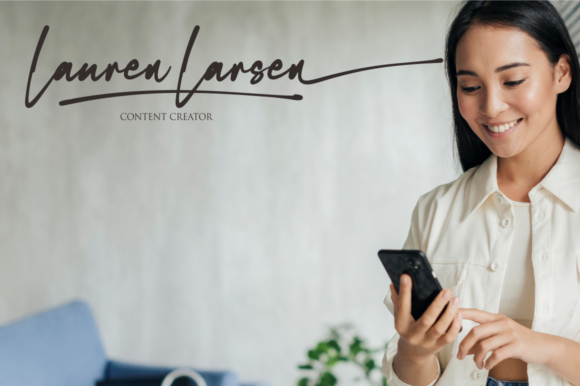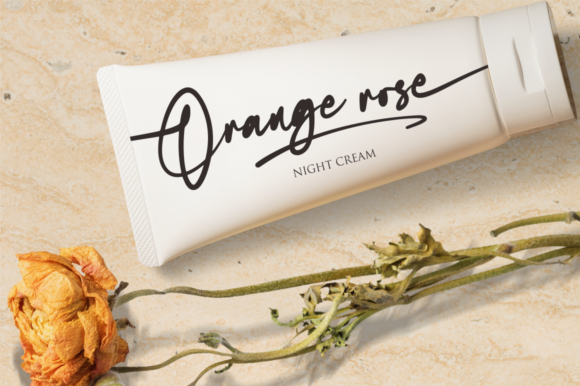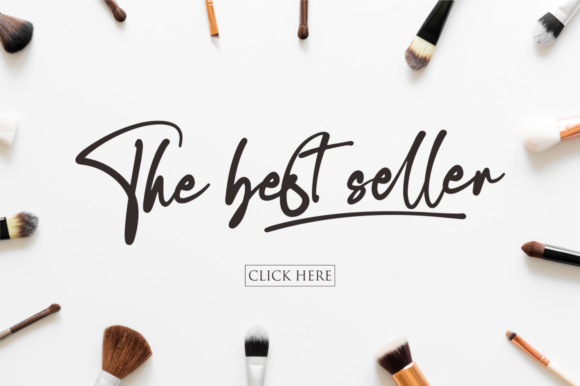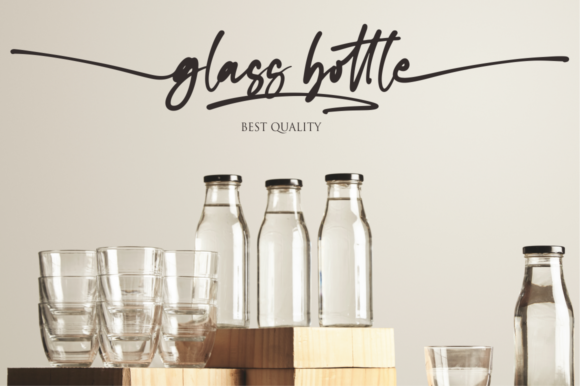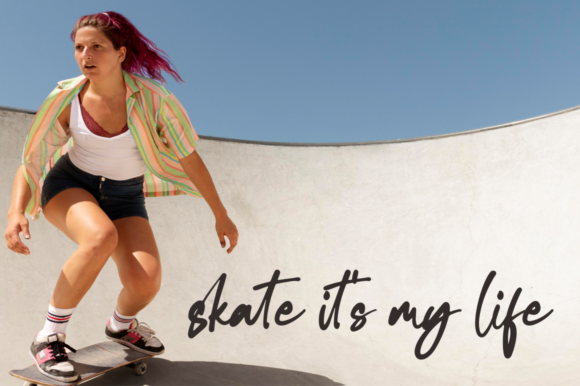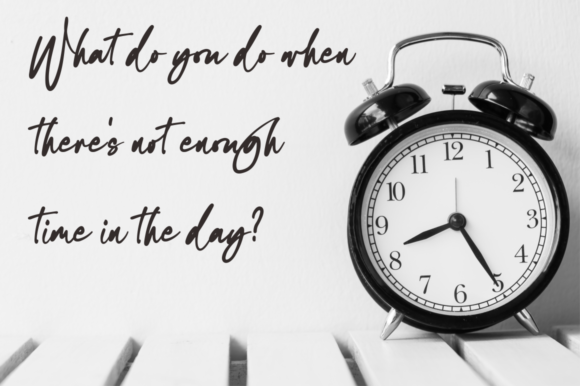
The Quest for the Perfect Font: Discovering First Line
Ah, the eternal struggle of finding the perfect font for our design projects. I still remember the time I was working on a branding project for a trendy boutique, and I just couldn’t seem to find a font that captured the essence of the brand. The client wanted something stylish, cool, and eye-catching, but also elegant and sophisticated. After hours of scouring font libraries and testing out different options, I stumbled upon First Line – a stylish and cool-looking handwritten font that instantly won me over.
First Impressions: A Review of First Line
So, what makes First Line so special? Let’s dive into the good stuff! 😊
- ✨ PUA encoded for easy access: I love that First Line is PUA (Private Use Area) encoded, which means I can easily access all the glyphs and swashes without having to dig through complicated menus or use external software.
- ✅ Stylish and versatile: First Line has a wide range of applications, from branding and packaging to social media graphics and invitations. Its stylish and cool vibe makes it perfect for projects that need a bit of personality.
- 💫 Beautiful swashes and glyphs: The font comes with a variety of swashes and glyphs that add an extra touch of elegance to any design. I love experimenting with different combinations to create unique and eye-catching effects.
The Not-So-Perfect: A Few Quirks
While First Line is an amazing font, it’s not without its quirks. Here are a few things to keep in mind:
- 🤔 Some characters may require manual kerning: As with any handwritten font, some characters may require manual kerning to get the spacing just right. But trust me, it’s worth the extra effort!
- ⚠️ Not suitable for body text: First Line is a display font, which means it’s best used for headlines, titles, and short paragraphs. It’s not suitable for longer blocks of text, where a more readable font would be a better choice.
The Story Behind First Line
First Line was designed by a talented font designer who wanted to create a font that would capture the essence of modern elegance. The designer drew inspiration from classic script fonts, but with a modern twist. The result is a font that’s both stylish and versatile, perfect for a wide range of design projects.
| What is First Line? | First Line is a stylish and cool-looking handwritten font that’s perfect for design projects that need a bit of personality. |
| Is First Line PUA encoded? | Yes, First Line is PUA encoded, which means you can easily access all the glyphs and swashes without having to dig through complicated menus or use external software. |